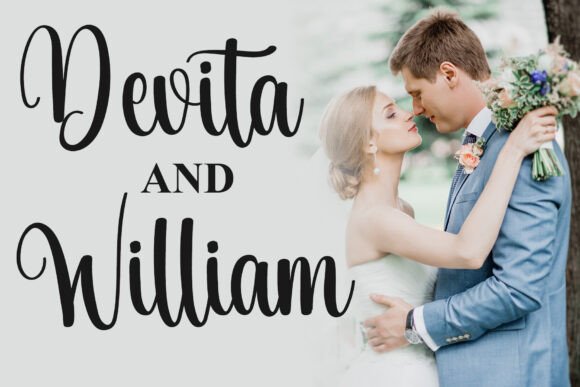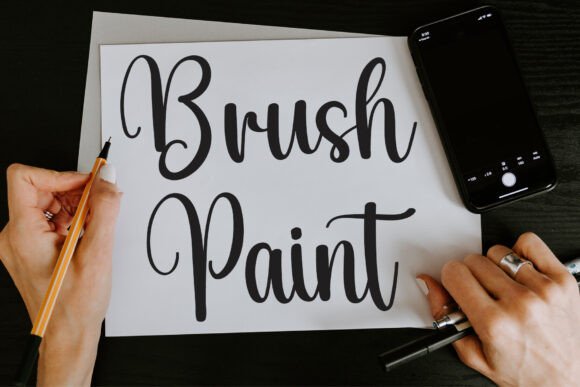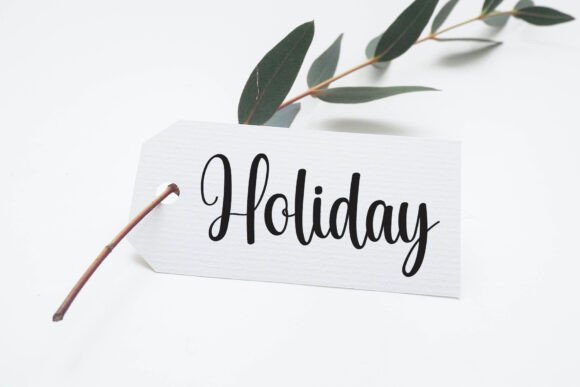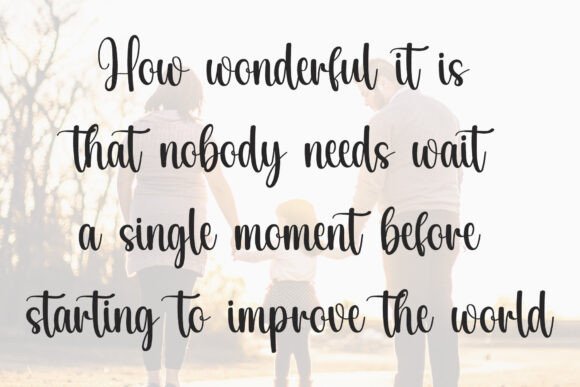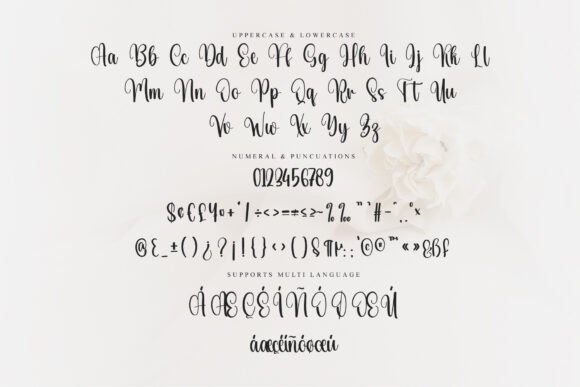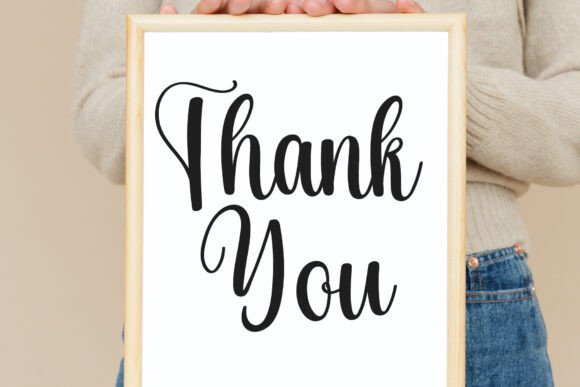
Grandma Adventure Font: A Timeless Elegant Script for Your Designs
Are you looking for a font that adds a touch of nostalgia and elegance to your designs? Look no further than the Grandma Adventure Font. This beautifully crafted handwritten script font combines vintage charm with heartwarming character, making it perfect for a wide range of design projects.
What is Grandma Adventure Font?
Grandma Adventure is an elegant script font that features delicate flourishes and natural variations, giving it a unique and charming personality. The font is designed to evoke a sense of timelessness and sophistication, making it ideal for designs that require a touch of elegance and refinement.
Characteristics of Grandma Adventure Font
The Grandma Adventure Font has several characteristics that make it stand out from other script fonts. Some of its key features include:
- Vintage elegance: The font has a distinctly vintage feel, with a warm and inviting personality that is reminiscent of a bygone era.
- Handwritten charm: The font is designed to look like it was written by hand, with natural variations and imperfections that give it a unique and charming character.
- Delicate flourishes: The font features delicate flourishes and swashes that add a touch of elegance and sophistication to any design.
- Natural variations: The font has natural variations in letter spacing and size, giving it a dynamic and organic feel.
Uses for Grandma Adventure Font
The Grandma Adventure Font is a versatile font that can be used for a wide range of design projects. Some of the most popular uses for the font include:
- Heirloom recipes: The font is perfect for creating heirloom recipes, cookbooks, and kitchen decor.
- Retro packaging: The font’s vintage charm makes it ideal for retro-style packaging and branding.
- Sentimental stationery: The font is perfect for creating sentimental stationery, such as greeting cards, invitations, and thank-you cards.
- Wedding designs: The font’s elegant and sophisticated personality makes it a popular choice for wedding designs, such as wedding invitations and ceremony programs.
Why Choose Grandma Adventure Font?
There are many reasons why designers and crafters choose the Grandma Adventure Font for their projects. Some of the benefits of using the font include:
- Unique and charming character: The font has a unique and charming personality that sets it apart from other script fonts.
- Elegant and sophisticated: The font is elegant and sophisticated, making it perfect for designs that require a touch of refinement.
- Vintage charm: The font’s vintage charm makes it ideal for designs that require a nostalgic or retro feel.
- Easy to read: The font is easy to read, even at small sizes, making it perfect for body text and captions.
Tips for Using Grandma Adventure Font
Here are a few tips for using the Grandma Adventure Font in your designs:
- Use it sparingly: The font is best used sparingly, as a headline or title font, to add a touch of elegance and sophistication to your design.
- Pair it with a sans-serif font: Pairing the font with a sans-serif font can create a nice contrast and add visual interest to your design.
- Experiment with colors: The font looks great in a variety of colors, so don’t be afraid to experiment and find the perfect color for your design.
The Grandma Adventure Font is a beautiful and elegant script font that adds a touch of nostalgia and sophistication to any design. With its vintage charm, handwritten personality, and delicate flourishes, it’s perfect for a wide range of design projects, from heirloom recipes to wedding designs. Whether you’re a designer or crafter, the Grandma Adventure Font is a great choice for adding a touch of elegance and refinement to your work.